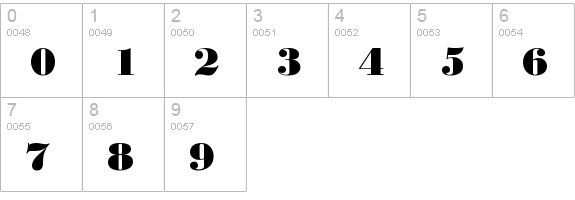
BodoniDBla Font Details
BodoniDBla font is a stunning typeface that exudes elegance and sophistication. Its sleek lines and sharp serifs make it perfect for creating sleek and modern designs. The font's timeless appeal and classic style make it a versatile choice for a wide range of projects, from branding to editorial design. The best part? BodoniDBla font is available for free download at FontsMarket.com. Now you can easily access this high-quality typeface and elevate your design projects without breaking the bank. Don't miss out on the opportunity to add BodoniDBla font to your font library and enhance your creative endeavors.